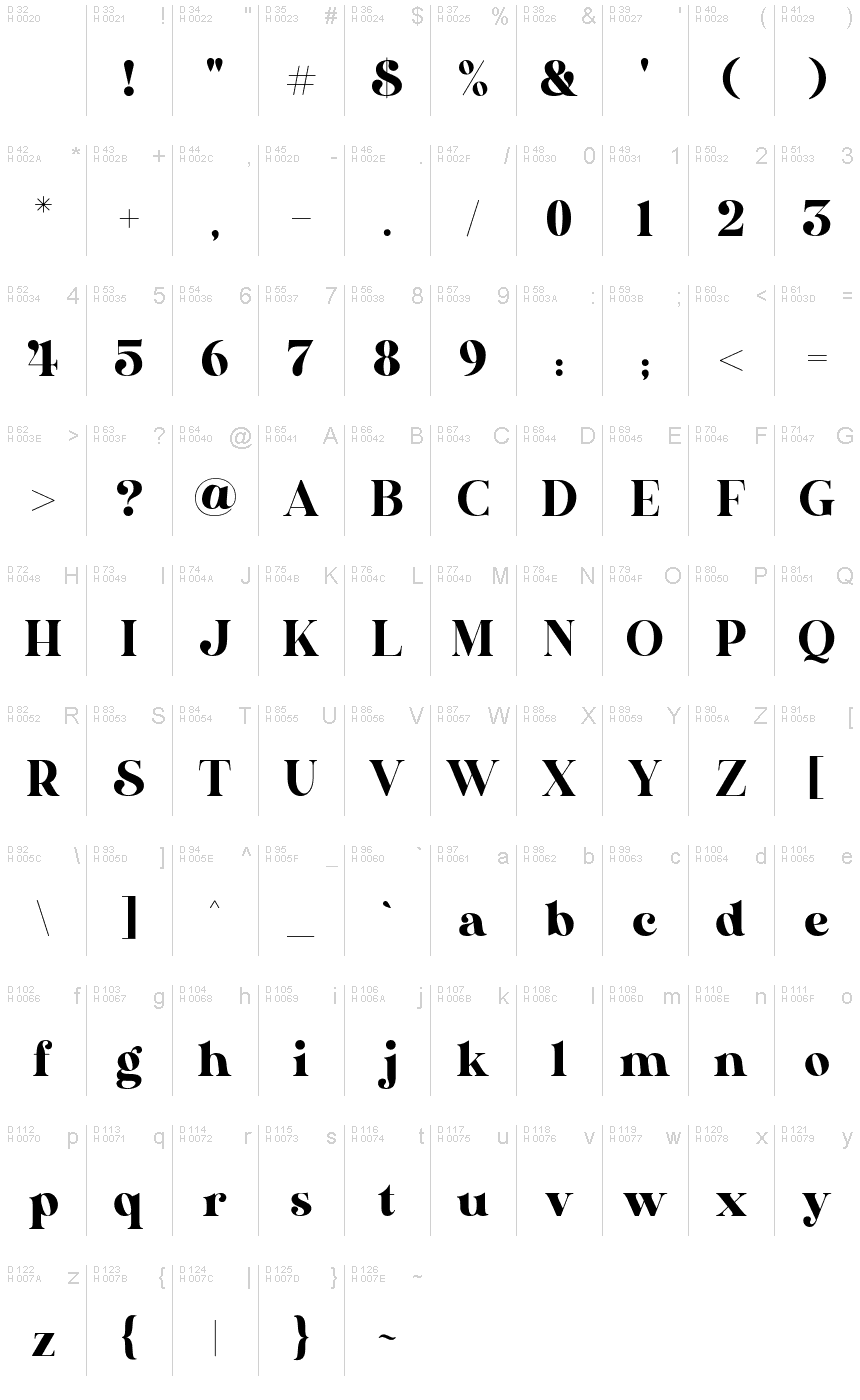
Nevrada_Neue
Nevrada Neue - A Font by Aluyeah Studio
Bonjour! Nevrada Neue is a fashiontastic display font. This font was carefully recrafted from bestseller font Nevrada and inspired by one of leading fashion brand in the world. In general, it creates a luxurious and elegant look in design.